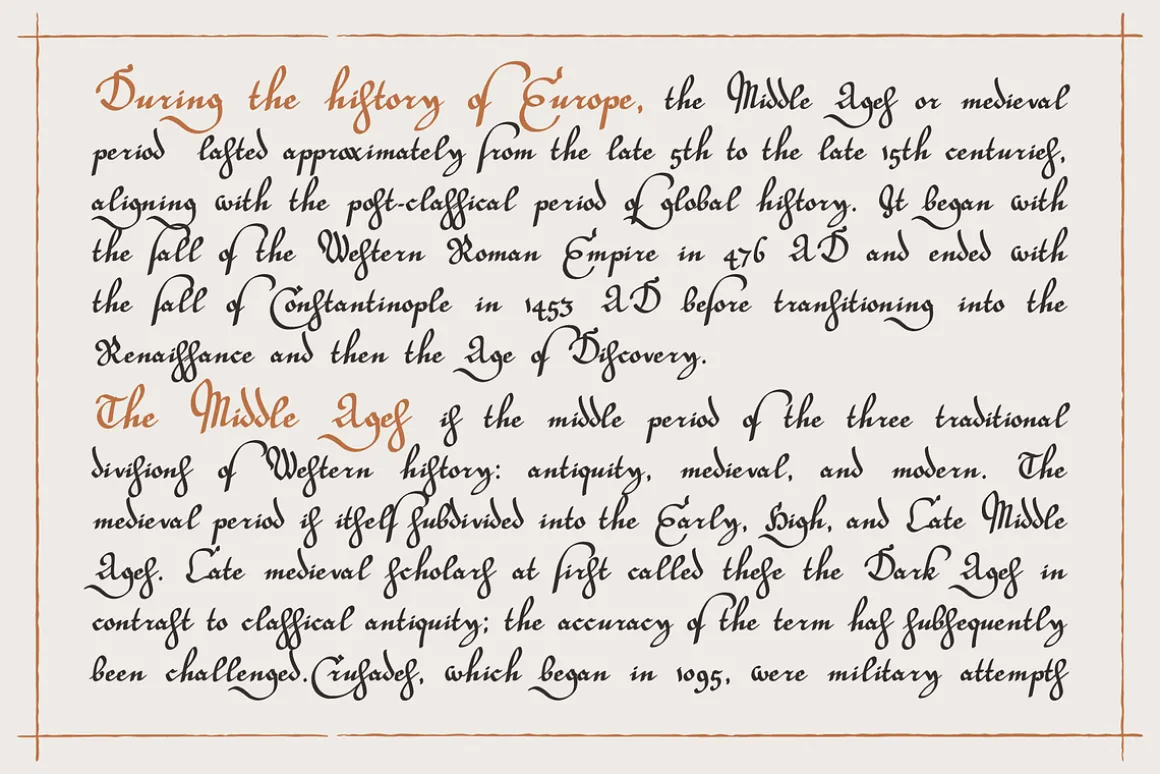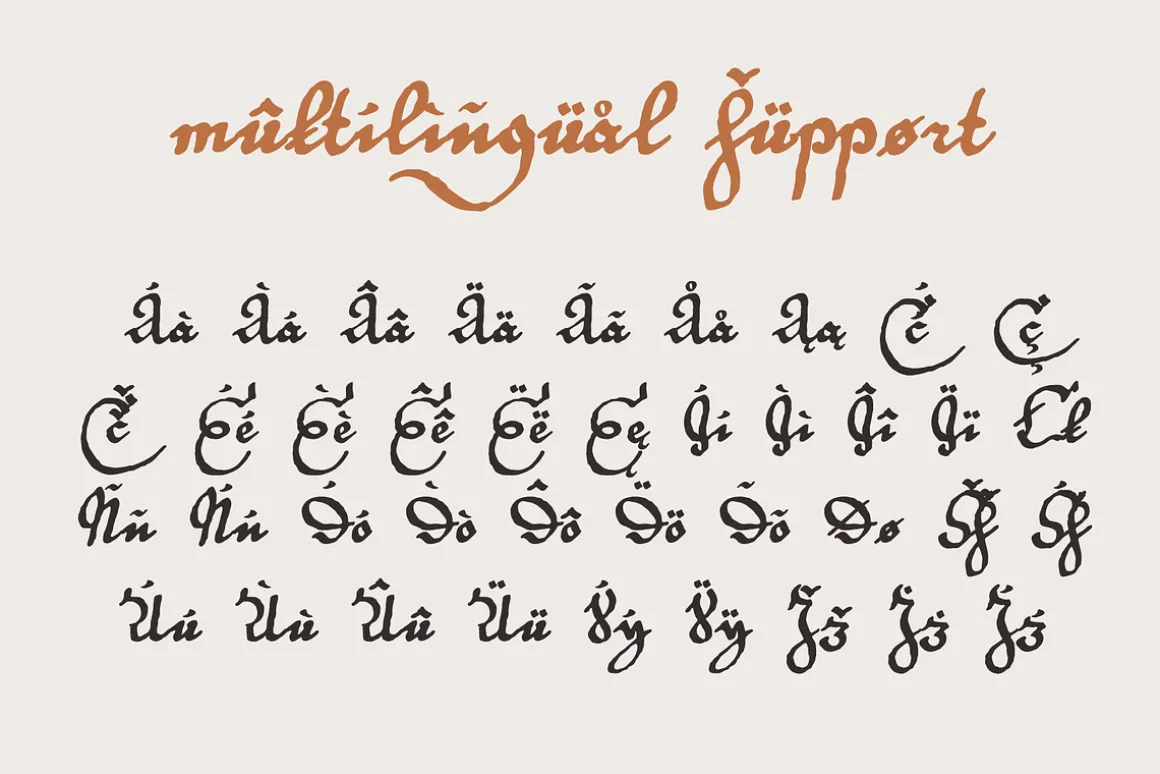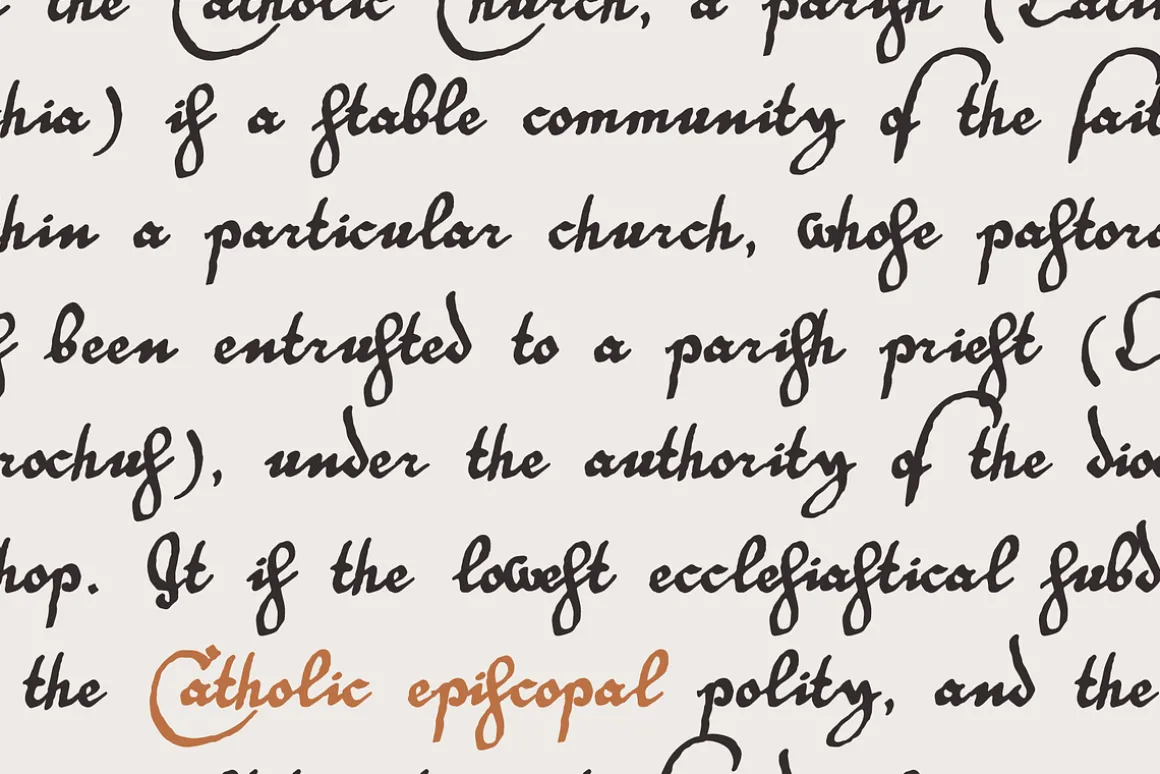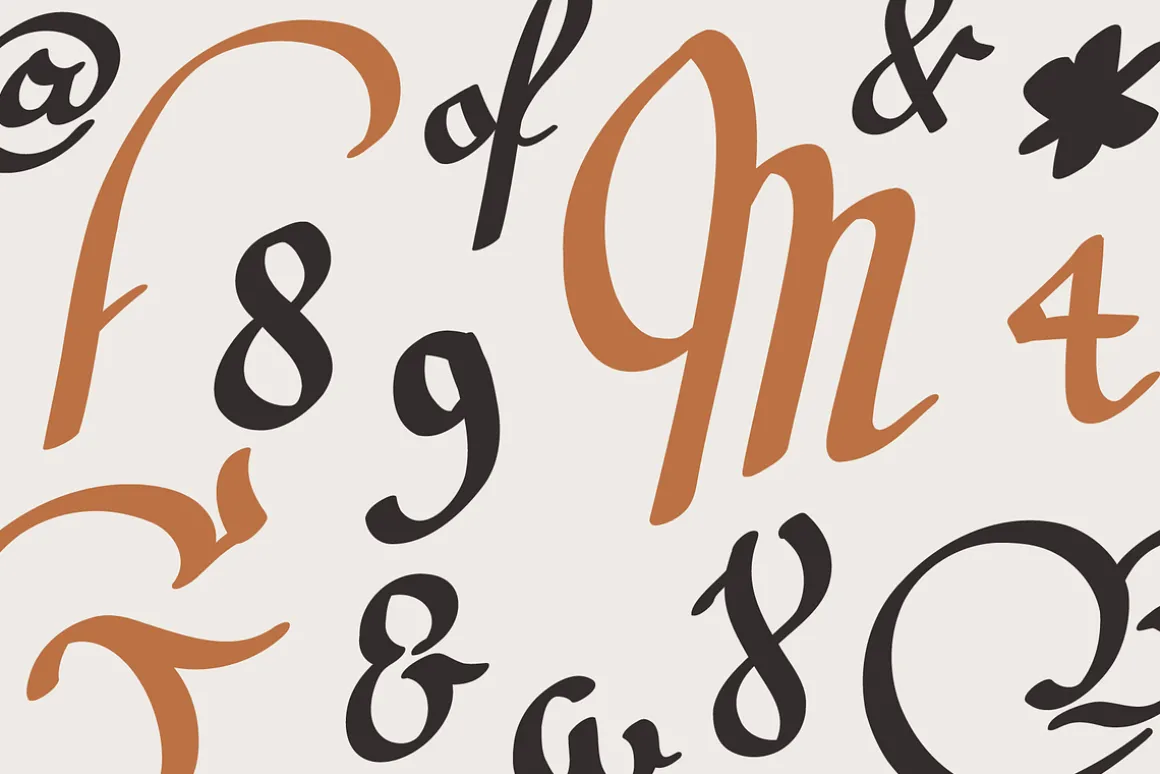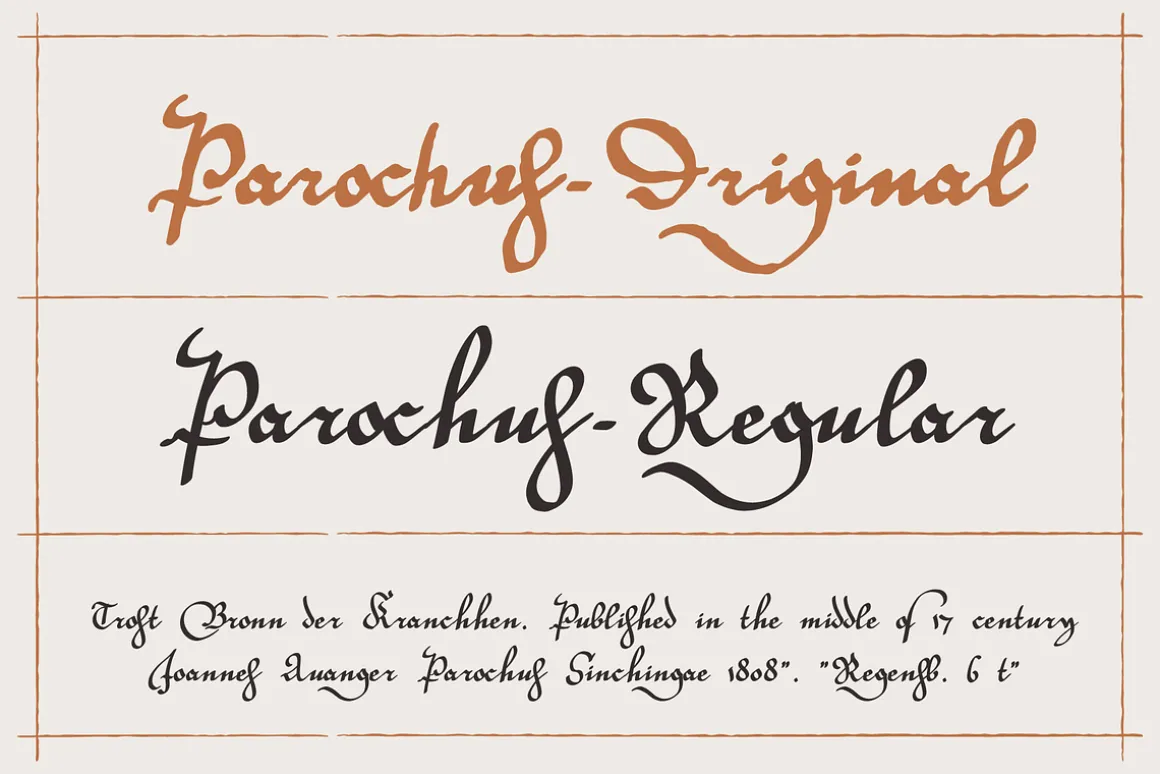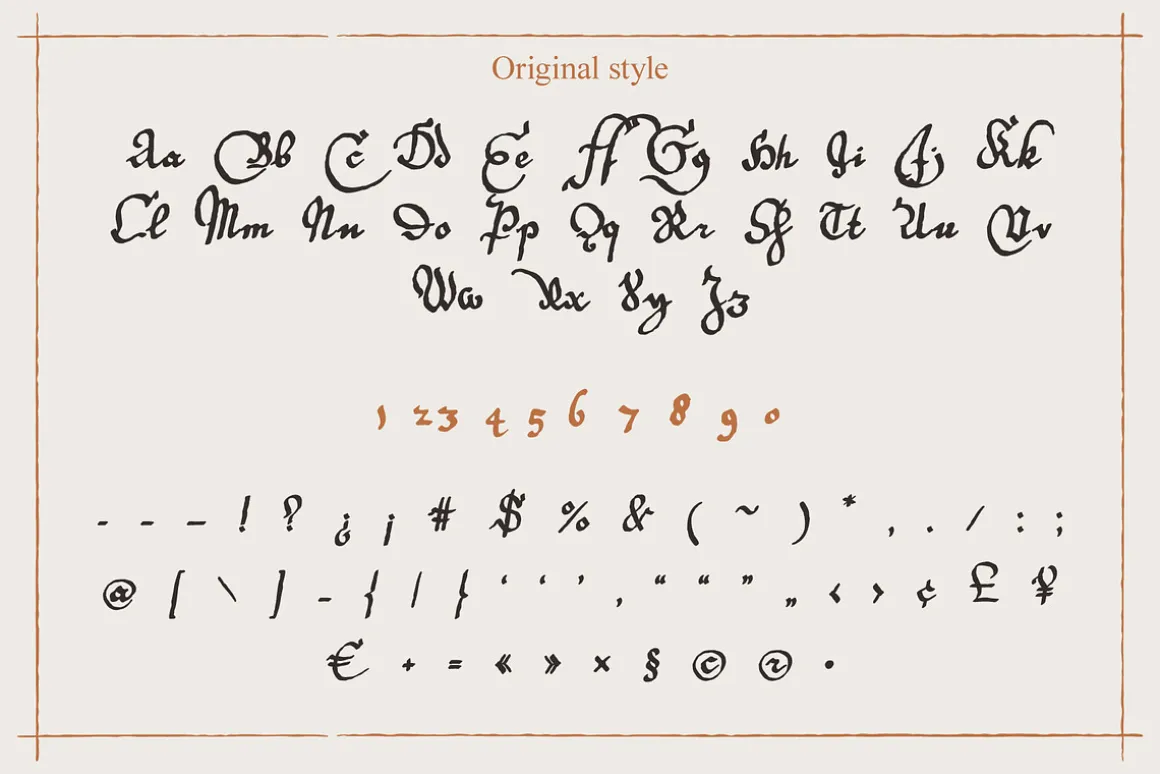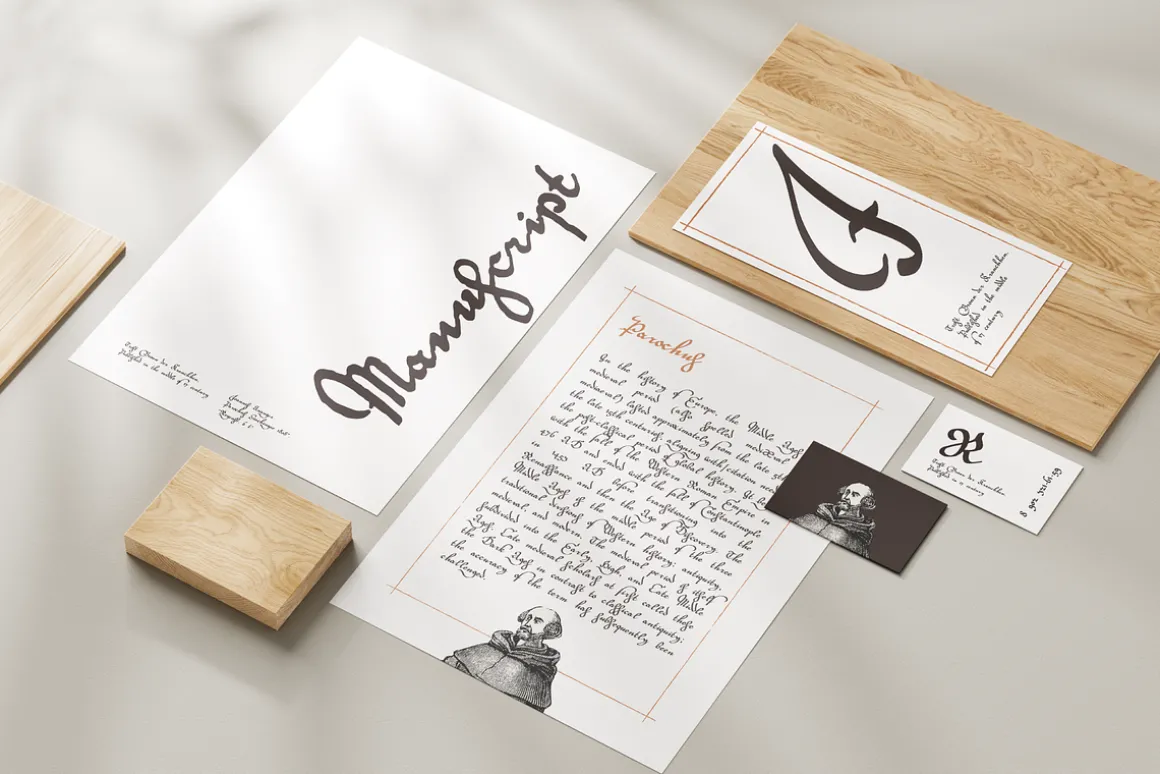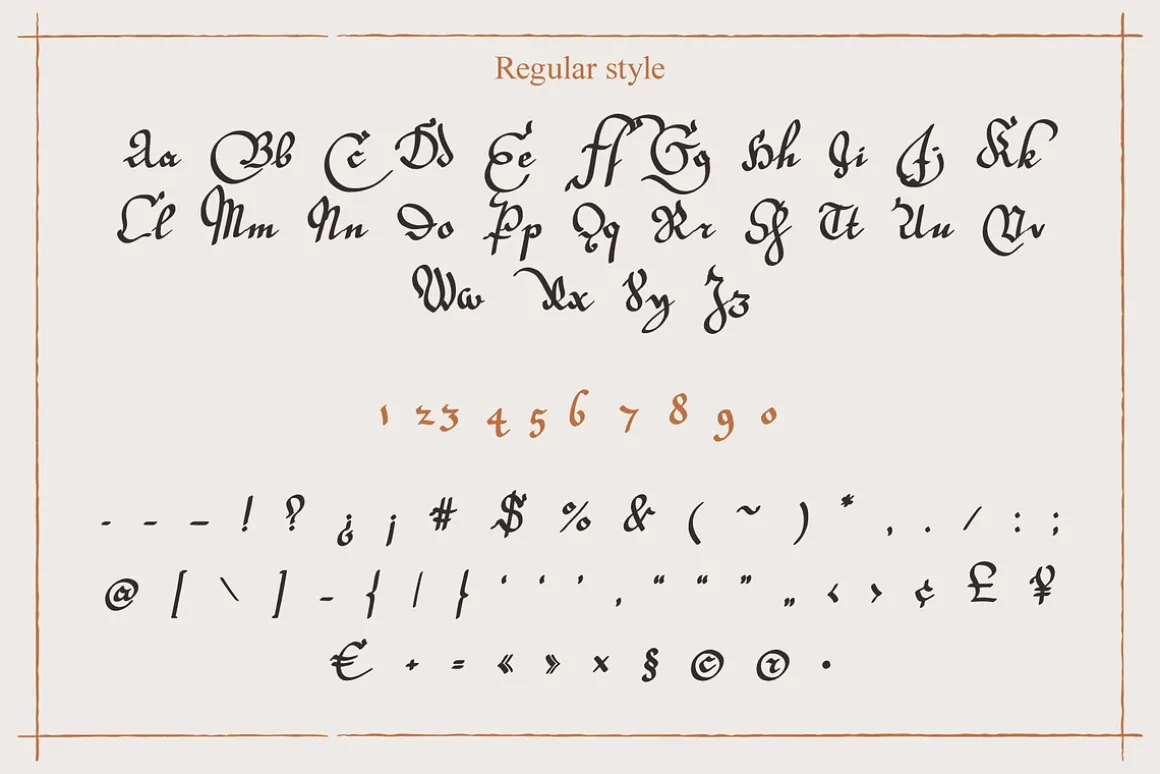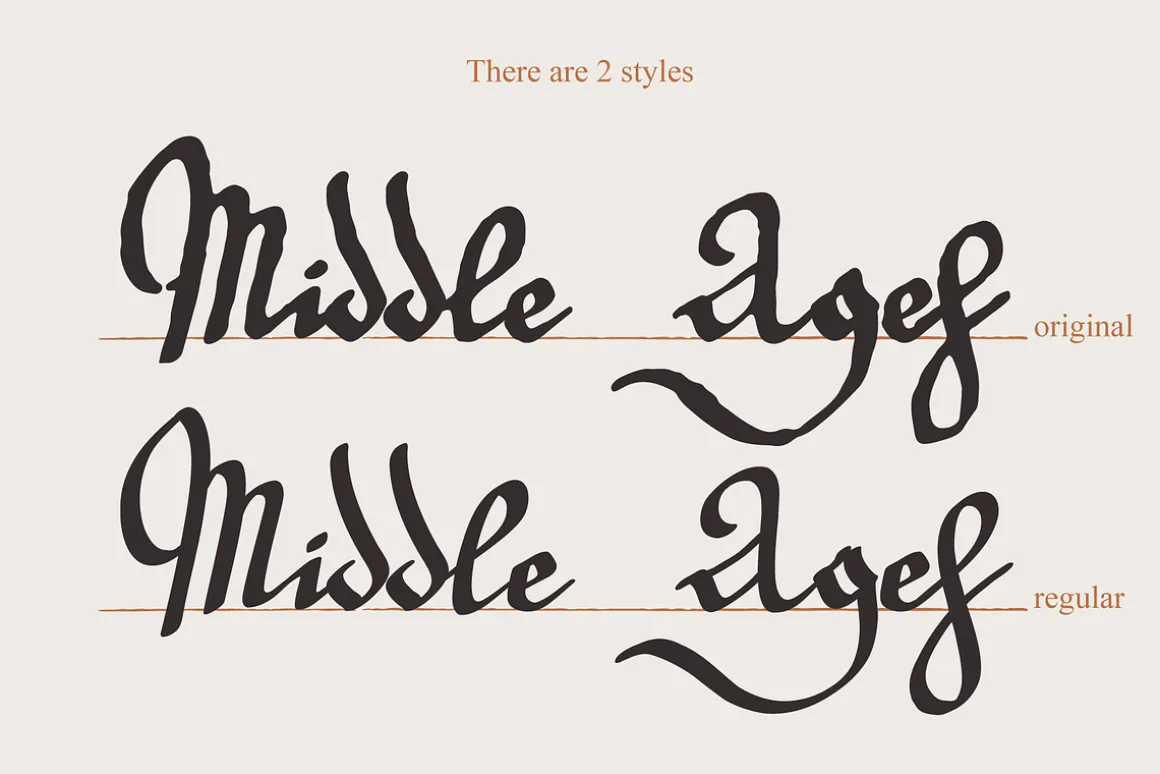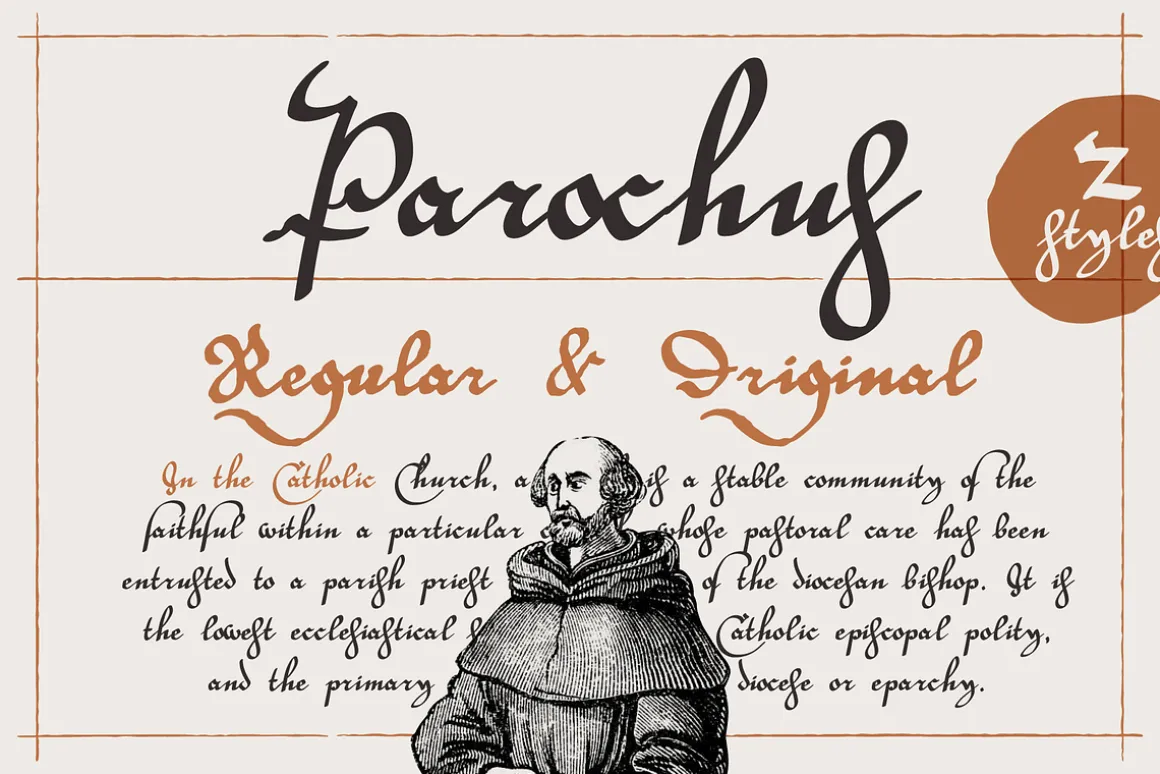
Hello! Inspiration for this beautiful script font I found in “A Source of Solace in Illness” (Trost Bronn der Kranchhen) book, published in the middle of 17th century. There was an entire on the back of the top cover: Joannes Auanger Parochus Sinchingae 1808”. That’s why I named my font family Parochus.
In the Catholic Church, a parish is a community of the faithful within a particular church, whose pastoral care has been entrusted to a parish priest (Latin: parochus).
There are original and regular style fonts. Also, I’ve added some modern symbols. With this set, you can precisely imitate medieval style text.
I designed a full uppercase and lowercase set with Multilingual support and ligatures. You’ll found ß, &, Š, ę and many other beautiful glyphs.